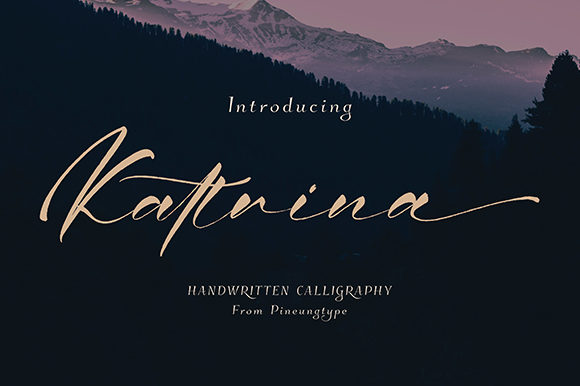
Kattrina Font
Unleash the Enchanting World of Kattrina: A Script Font That Captivates
Welcome to the realm of Kattrina, an ethereal and contemporary script font that weaves a captivating tapestry of elegance and charm. Crafted with meticulous care by the artistic minds at Pineungtype & Missinklab, Kattrina is a breath of fresh air, inviting you to express your creativity with a touch of magic.
Indulge in the Lightness of Being
Kattrina's delicate strokes dance across the canvas, creating an air of effortless grace. Its light and airy nature invites you to let your imagination soar, crafting designs that whisper with a sense of whimsy and freedom. Whether you're penning heartfelt letters, adorning social media posts, or leaving a lasting impression on business cards, Kattrina's ethereal presence will make your words shine.
The Allure of the Handwritten
Embrace the timeless allure of handwriting with Kattrina's charming imperfections. Each letter flows with a natural rhythm, mimicking the gentle curves and subtle variations of penned strokes. It's a font that captures the essence of human connection, adding a touch of warmth and authenticity to your digital creations.
A Source of Creative Inspiration
Let Kattrina be your muse, igniting your creative spark. Its cool and refreshing aesthetic invites you to explore uncharted territories of design, effortlessly elevating your projects to new heights of sophistication. Whether you're a seasoned designer or just starting your creative journey, Kattrina's versatility will empower you to express your unique vision.
Experience the Kattrina Magic
Step into the enchanting world of Kattrina and discover a font that will captivate and inspire. Its light feel, handwritten charm, and creative allure make it the perfect choice for those who seek to leave a lasting impression. Download Kattrina today and let its magic transform your designs into works of art.